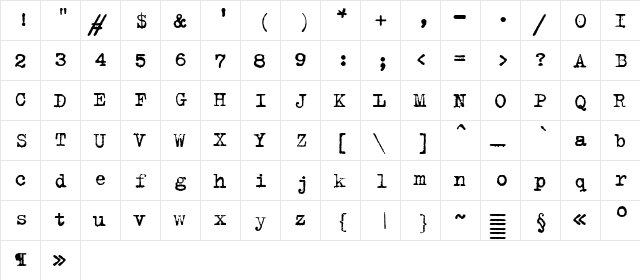
TrixieCyr Plain
Design Context for TrixieCyr Typeface
TrixieCyr is a composed and adaptable typeface that performs quietly and consistently across a wide range of design contexts.